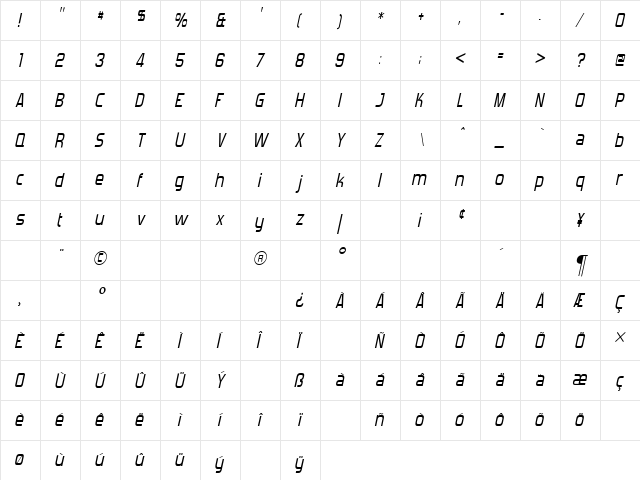
Forgotten Futurist Italic
Design Context for Forgotten Futurist Typeface
Forgotten Futurist channels digital-age aesthetics through its sharp, structured letterforms — ideal for brands that want to signal innovation. The slanted form adds forward momentum and visual energy.